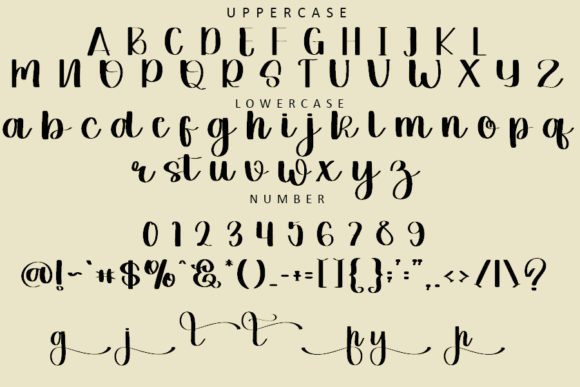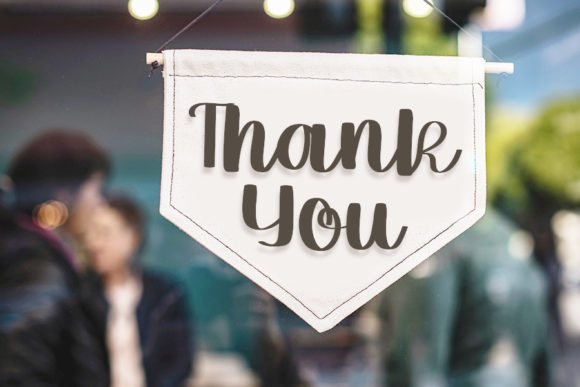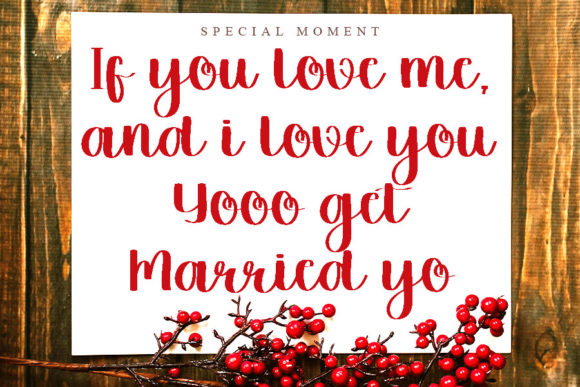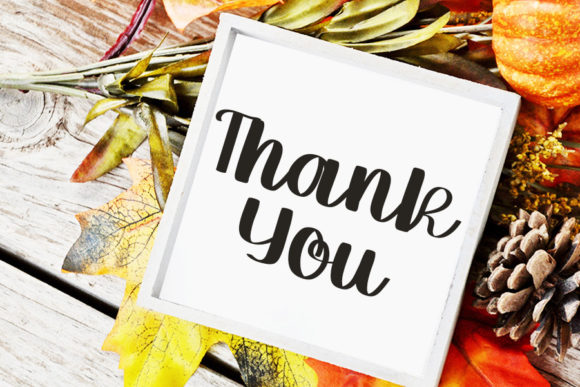
Something Font
About Something Font
SomethingĀ is a ravishing handwritten font. This versatile script font has a wide spectrum of applications ranging from greeting cards to headlines and is guaranteed to add a romantic feel to your next project.